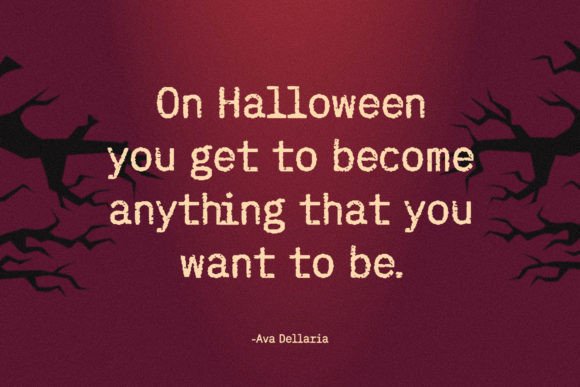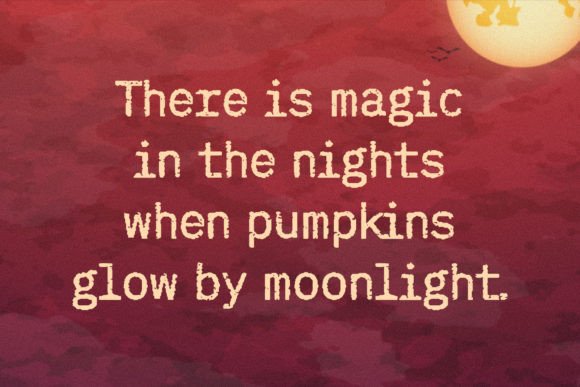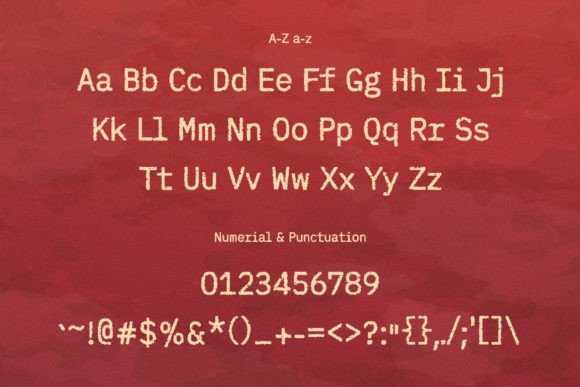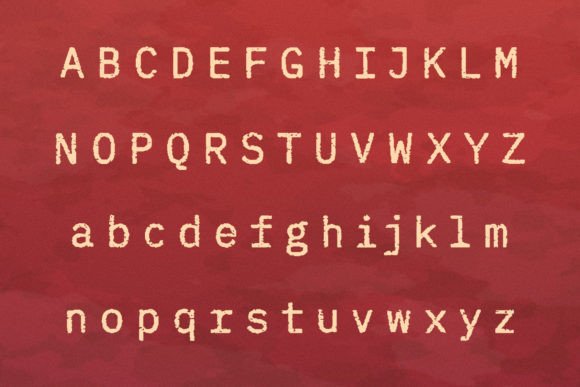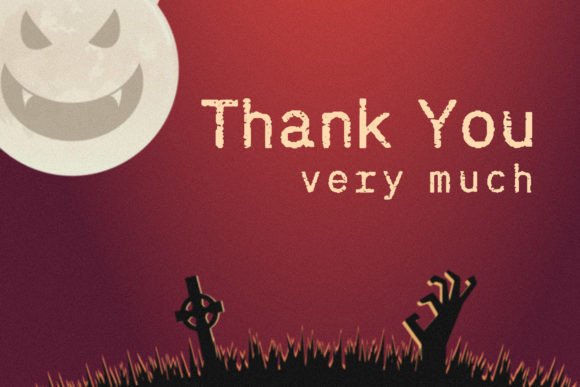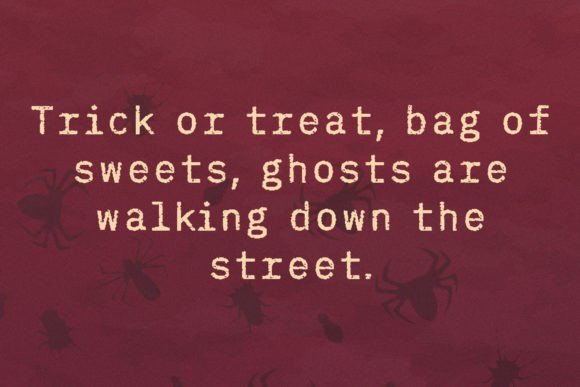
The Font that Haunts Your Dreams: A Guide to the Evil Typewriter Font
You’re huddled in your dimly lit studio, surrounded by candles and the faint scent of old books. The clock strikes midnight, and you’re in the zone – your creativity is flowing, and your next project is taking shape. But something’s missing. A spark, a dash of darkness, a hint of malevolence. That’s where the Evil Typewriter Font comes in – a terrifying, horror-inspired grunge font designed to bring your nightmares to life.
This font is not just a design tool, but a key to unlocking the deepest, darkest corners of your imagination. With its eerie, distressed look, the Evil Typewriter Font adds an air of foreboding to any project, making it perfect for horror-themed designs, Halloween decorations, and anything that requires a touch of the macabre.
Evil Typewriter Font Key Features
- Font Family: Evil Typewriter
- Unique Characteristics: Distressed, worn, and vintage aesthetic, with simulated wear and tear effects such as ink smudges, scratches, and fading.
Evil Typewriter Font Review
I’ve got to say, I was both intrigued and skeptical when I first laid eyes on the Evil Typewriter Font. The initial impression was that it’s a font that’s going to be a bit of a niche product, but I decided to give it a fair shot. Here’s my honest take.
- The distressed, worn look is perfect for creating a vintage or retro aesthetic. It’s a great choice for designers who want to evoke a sense of nostalgia.
- The font is highly customizable, with plenty of options for adjusting the look and feel to suit your project.
- The Evil Typewriter Font is available in a wide range of weights and styles, making it easy to find the perfect fit for your design.
Limitsations ⚠️
- The font may not be suitable for all types of projects, particularly those that require a clean and modern look.
- The distressed look can sometimes be overwhelming or difficult to read, particularly in large blocks of text.
- The font may not be as versatile as some other options on the market, particularly when it comes to pairing with other fonts.
Overall, I think the Evil Typewriter Font is a solid choice for designers who are looking for a unique and eye-catching font. While it may have some limitations, it’s definitely worth considering for the right project. With a little creativity and experimentation, I think you can achieve some really great results with this font.
The Evil Typewriter Font is commonly used in horror-themed designs, film noir-inspired artwork, and vintage-style posters.
It’s also great for creating a sense of nostalgia and retro charm in your designs.
To get the most out of the Evil Typewriter Font, try pairing it with distressed textures and grungy backgrounds to create a truly unique look.
Experiment with different font sizes and styles to add emphasis and create visual interest.